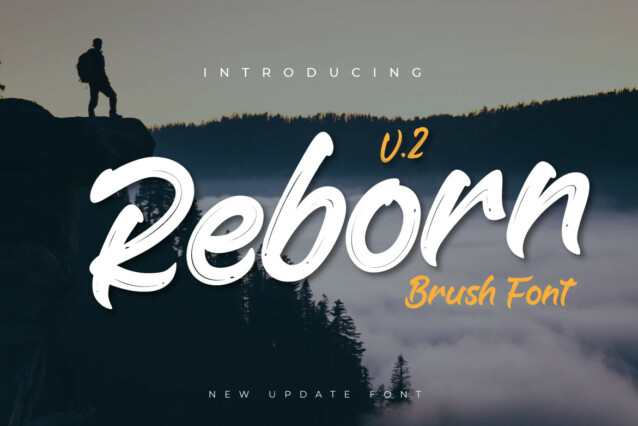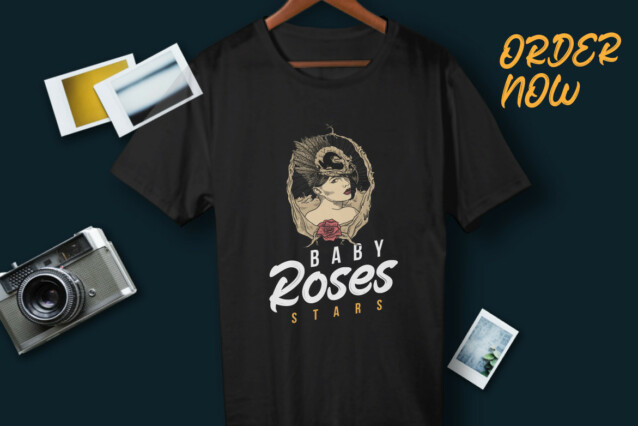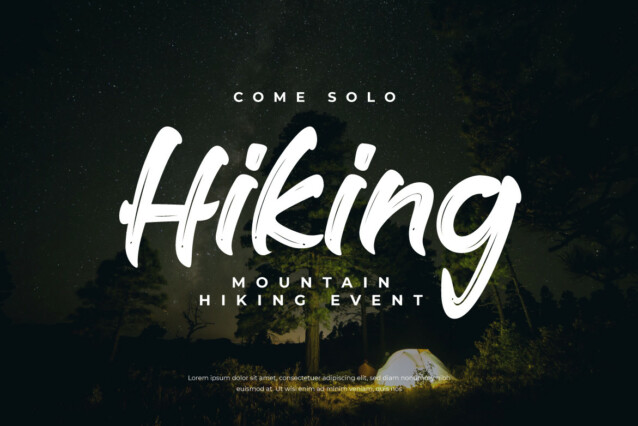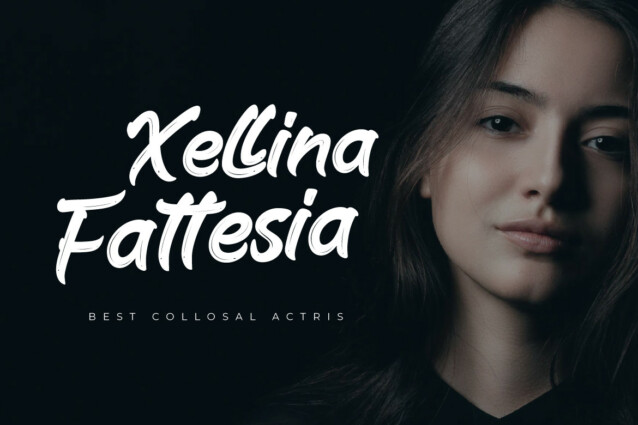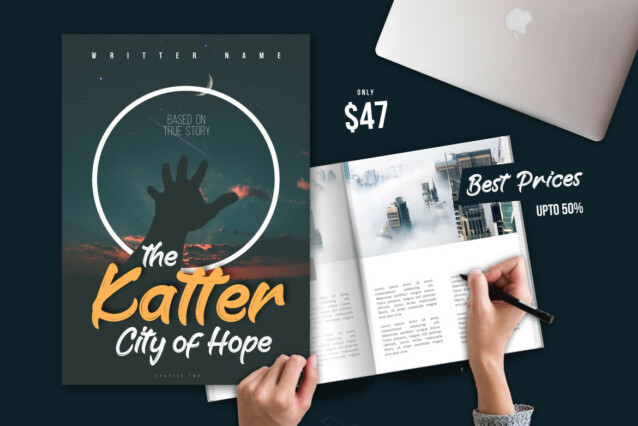
Reborn Font
Reborn Font is an exquisite handwritten font, masterfully designed to become a true favorite. It maintains its classy calligraphic influences while feeling contemporary and fresh. Fall in love with it and bring your projects to the highest levels!